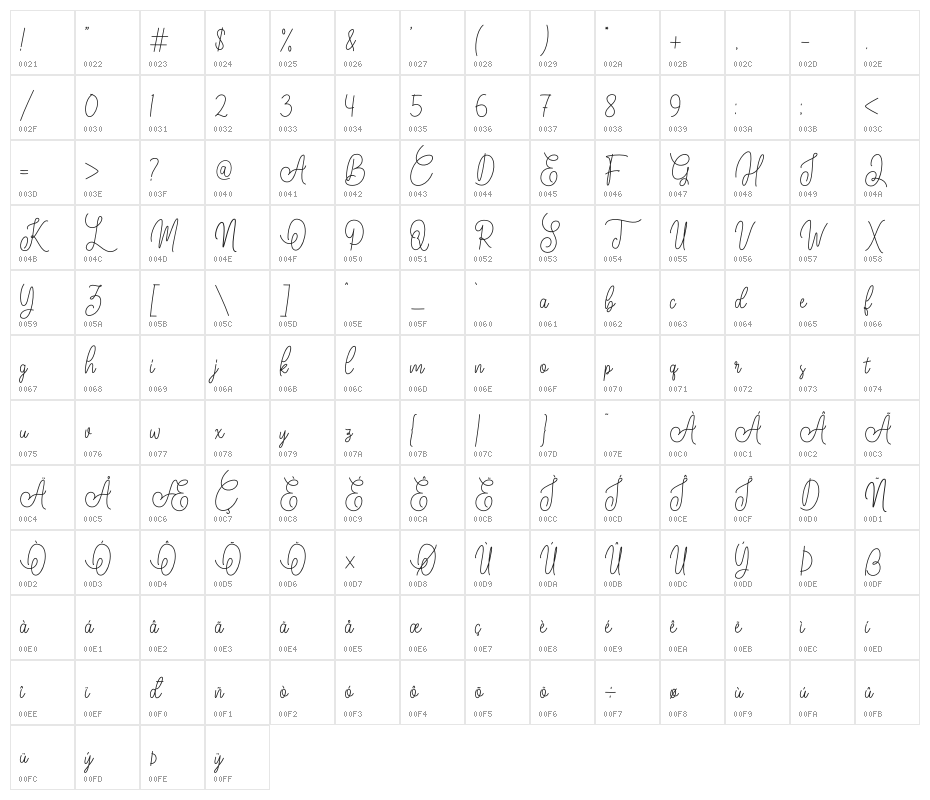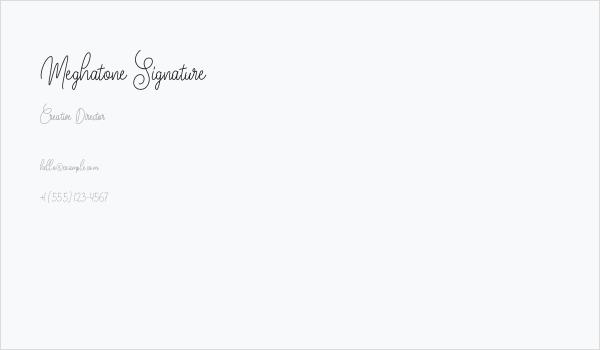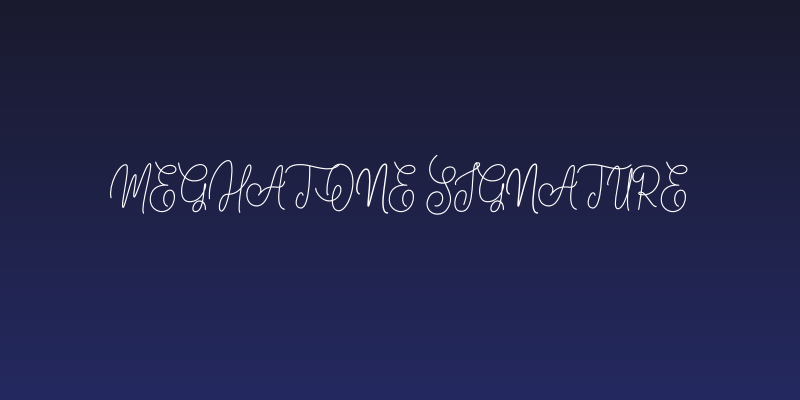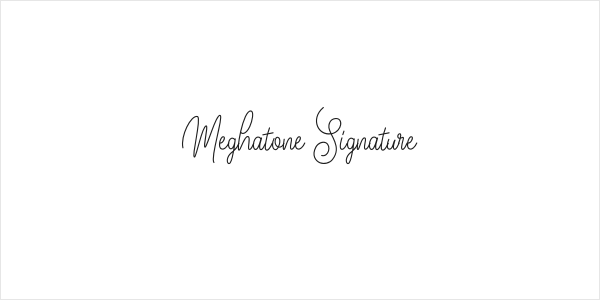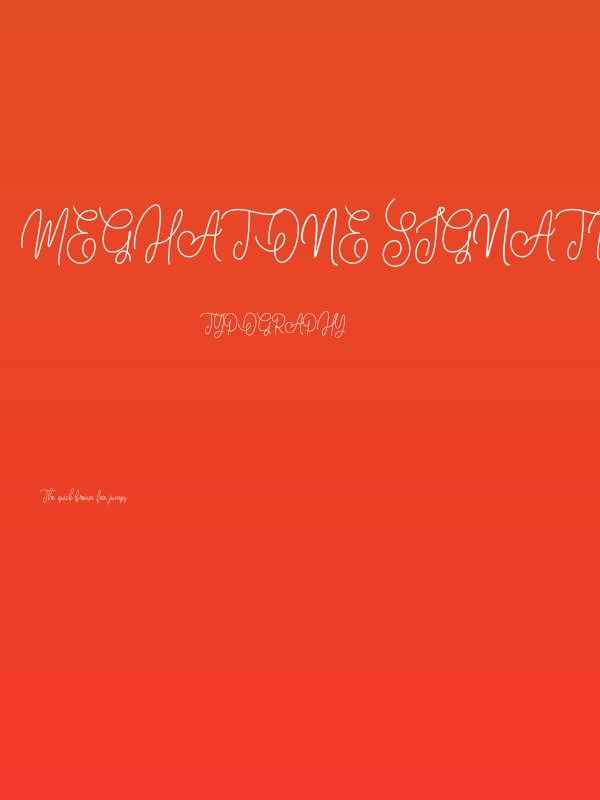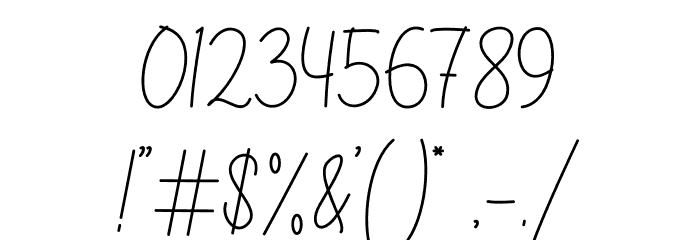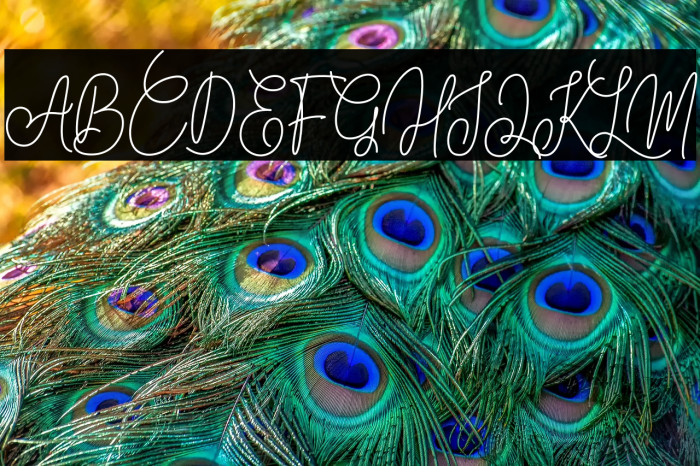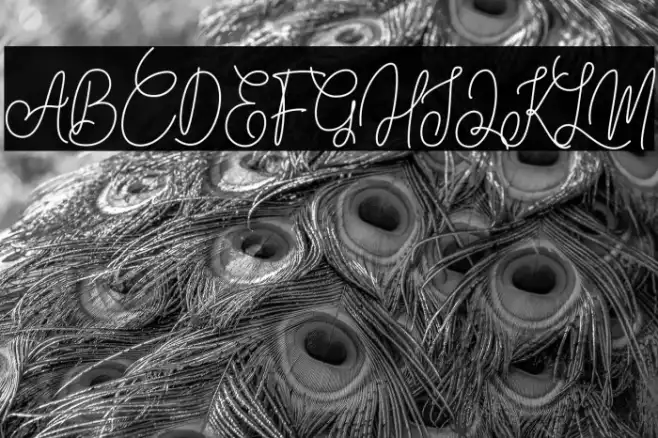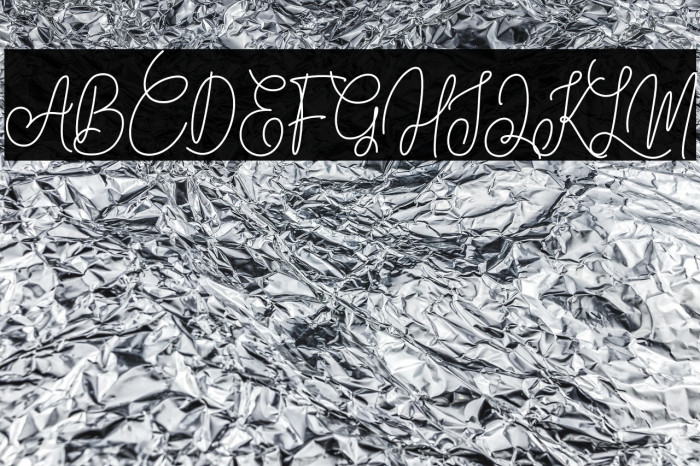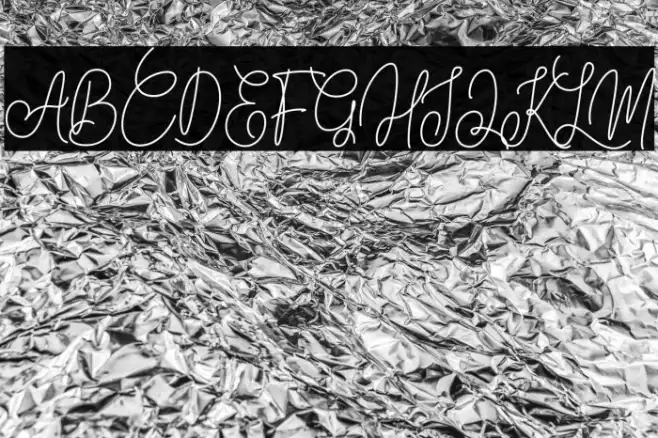
Meghatone Signature Font
Meghatone Signature Description
This elegant script font features a flowing, cursive style with a modern twist. The uppercase letters are characterized by their tall, slender forms and graceful loops, while the lowercase letters maintain a smooth, connected flow. The numerals are designed with a consistent stroke width, complementing the overall aesthetic. Special characters are thoughtfully crafted to match the font's sophisticated style. This font exudes a sense of elegance and refinement, making it ideal for projects that require a touch of class and sophistication.
| Proposed Projects | Ideal for wedding invitations, branding, logos, and elegant stationery. |
Meghatone Signature